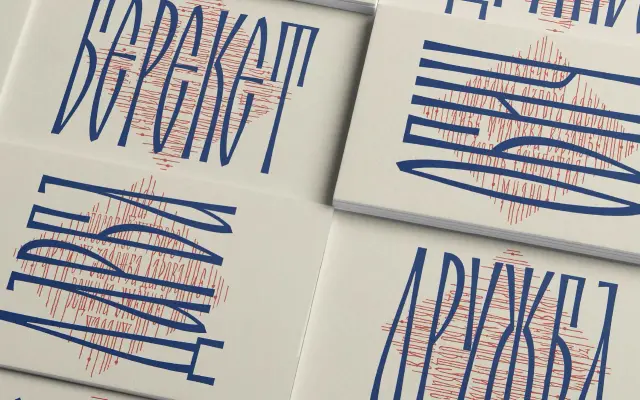
Drumnik
Fontfabric · Stopan, Plamen Motev, Stefan Yatanski, Mirela Belcheva · 2022
A Bulgarian-rooted display serif released on the Day of the Slavonic Alphabet, offered in clean and hand-textured variants drawn from traditional Slavic calligraphy.
Designed by four collaborators including Bulgarian bookbinder Stopan, whose hand-lettered scripts provided the source material, Drumnik blends calligraphic Slavic letterforms with digital construction. It comes in two styles — a clean version and a richly textured one — giving designers a straightforward way to dial up or down the handcrafted quality. Over 640 glyphs cover Extended Latin and Cyrillic, with OpenType features including double-story ligatures and stylistic alternates for expressive display use.
A vintage-inspired display serif drawing on Bulgarian hand-lettered Slavic calligraphy, with texture and calligraphic stroke contrast placing it firmly in the display serif category rather than a text serif tradition.